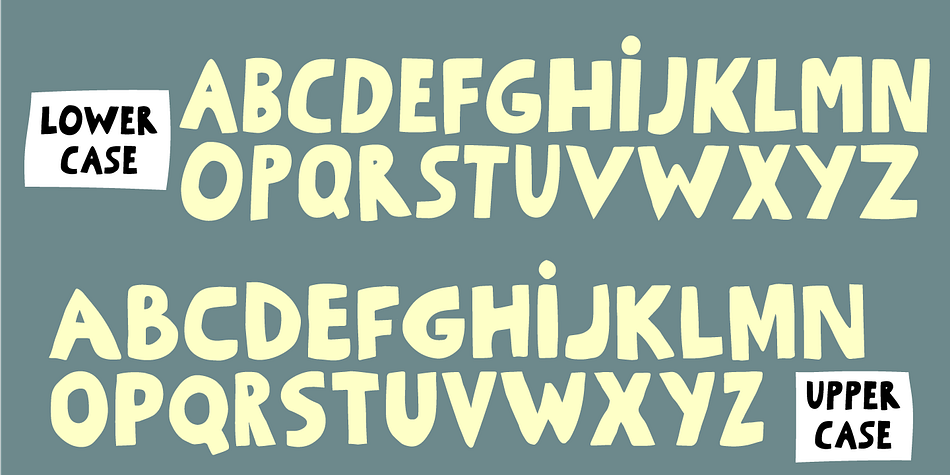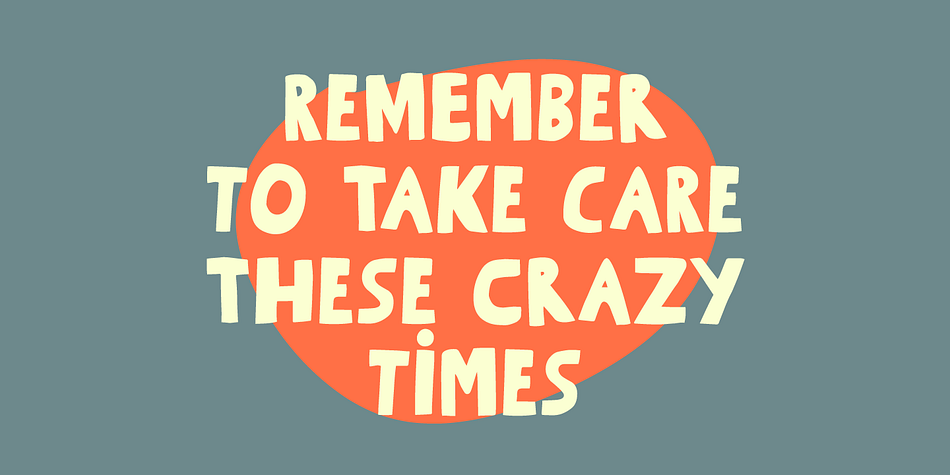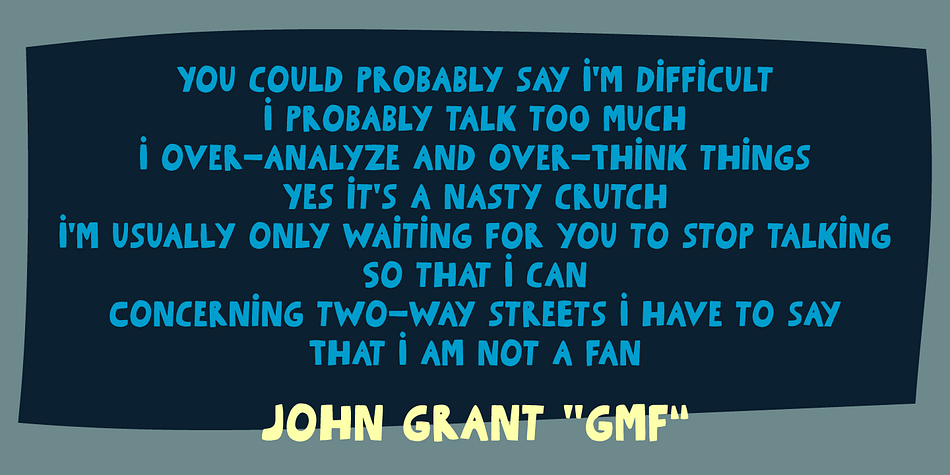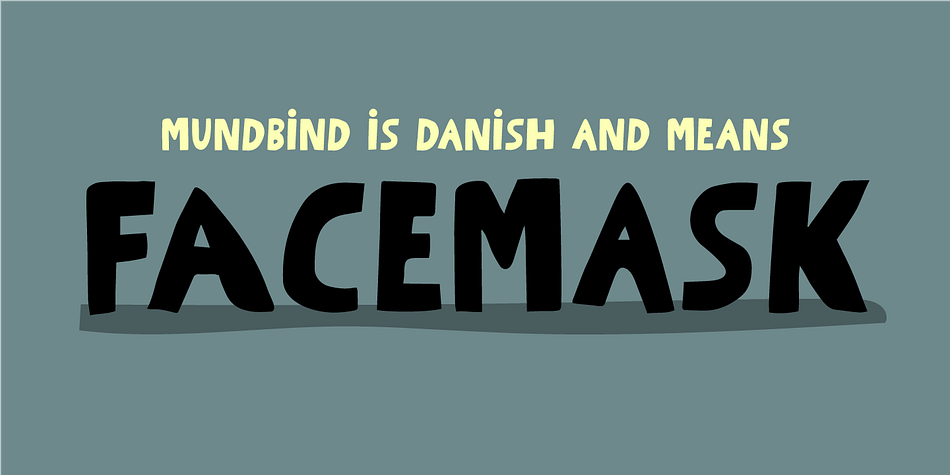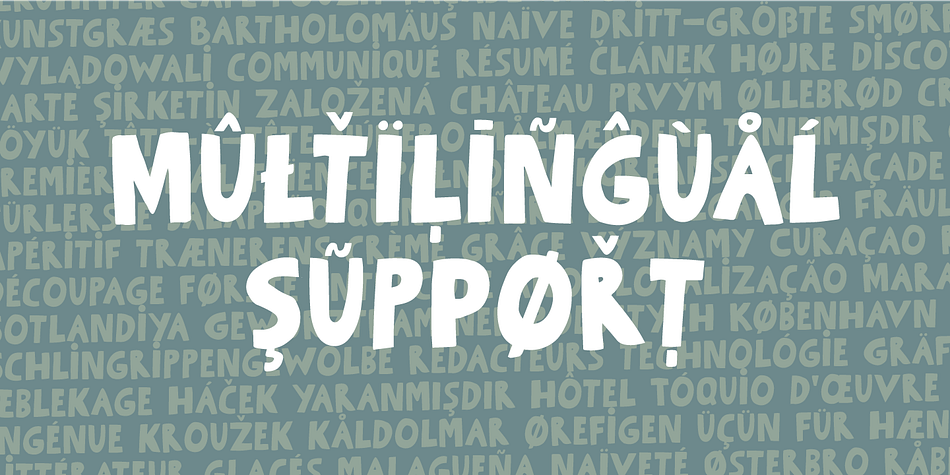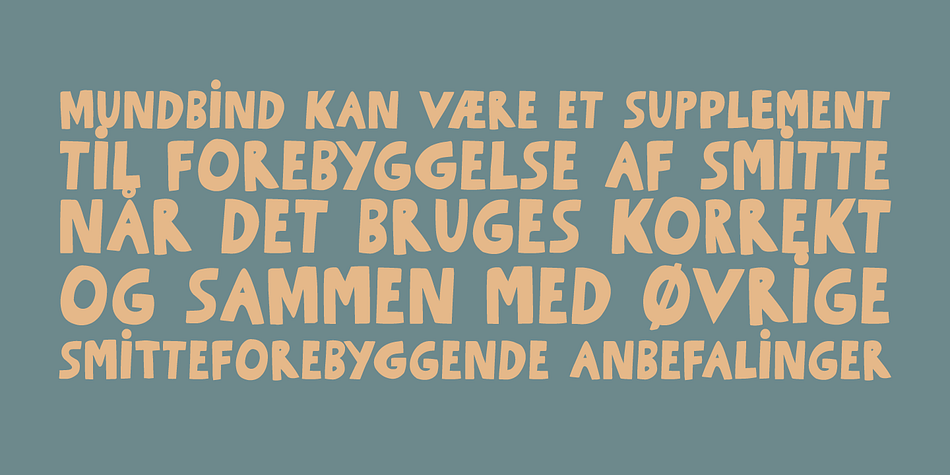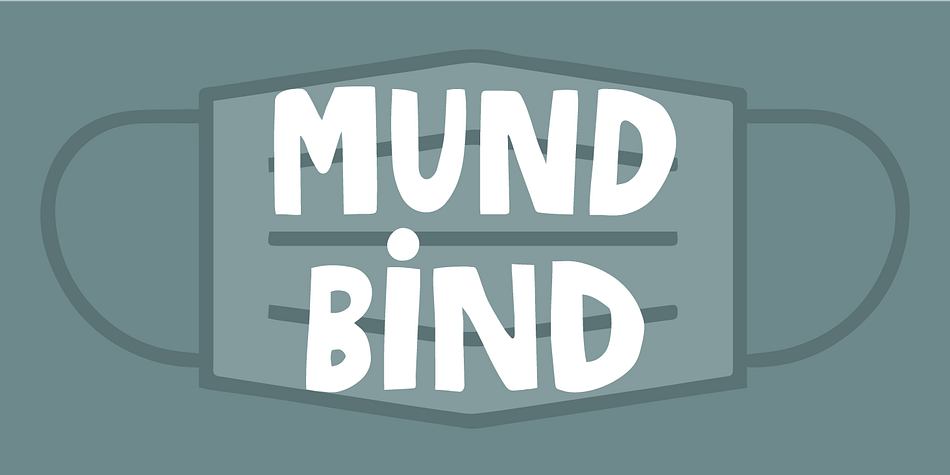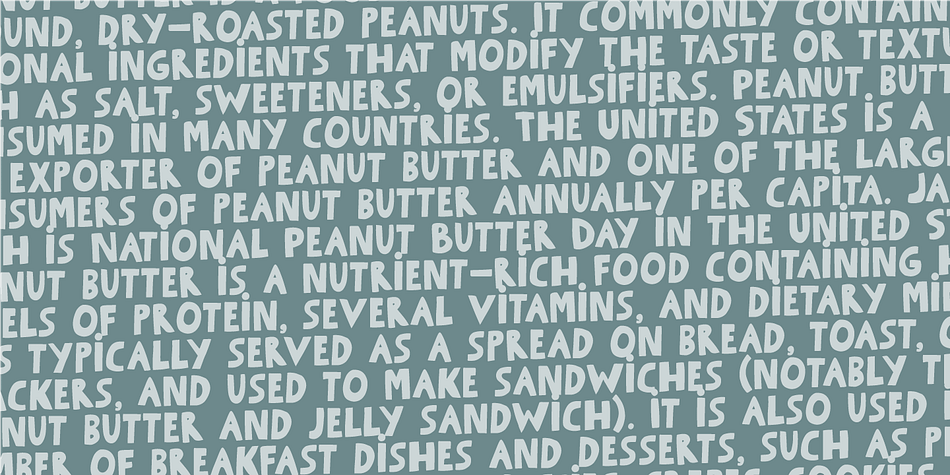
Mundbind DK
Designed by Jakob Fischer, Mundbind DK is a hand display and kids font family. This typeface has two styles and was published by Pizzadude.dk.
Well, on one of our walk (of course looking for inspiration for new fonts) we spotted this handmade sign. We agreed to make a font of the 7 letters available, using our own imagination and style!
I called my font Mundbind DK and David named his Mundbind NL - of course it is the landcodes of Denmark and Holland.
As you can tell, the font is uneven and somewhat unpredictable - following only the “rules” of the person who handprinted that sign ... and not many of the rules of the good old and respected painter who make beautiful signs ... however, this sign had it’s beauty in a natural and innocent way.